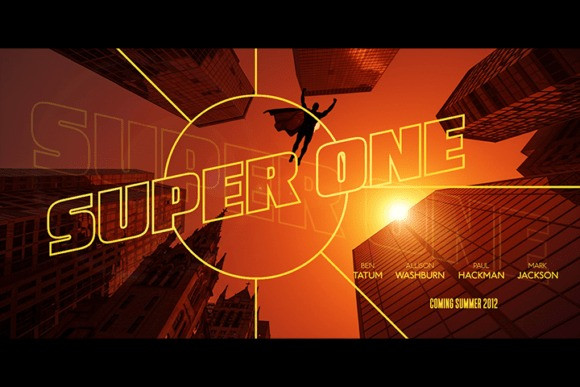
Magna Lux Font
Republica Minor font: enough changes to make it a whole new family. Magna Lux retains the overall feel of the old version, but many of the characters have been completely redrawn. Those changes have been incorporated into the rest of the font, giving it a fresher, more consistent look. The uppercase characters are bold with minimal spacing. The lowercase characters emphasize clean curves and wide stroke weights with short ups and downs.
These characteristics are shared across other members, such as numbers. Use it for team logos, magazine covers, or web graphics. Magna Lux comes in four different versions, including Basic and Extended Latin, Punctuation, Letter Spacing, Alternate (Eroded), Cyrillic, and Greek.
The eroded version can repeat the same letter multiple times if your software supports OTF features. Please check the character map for all supported characters.